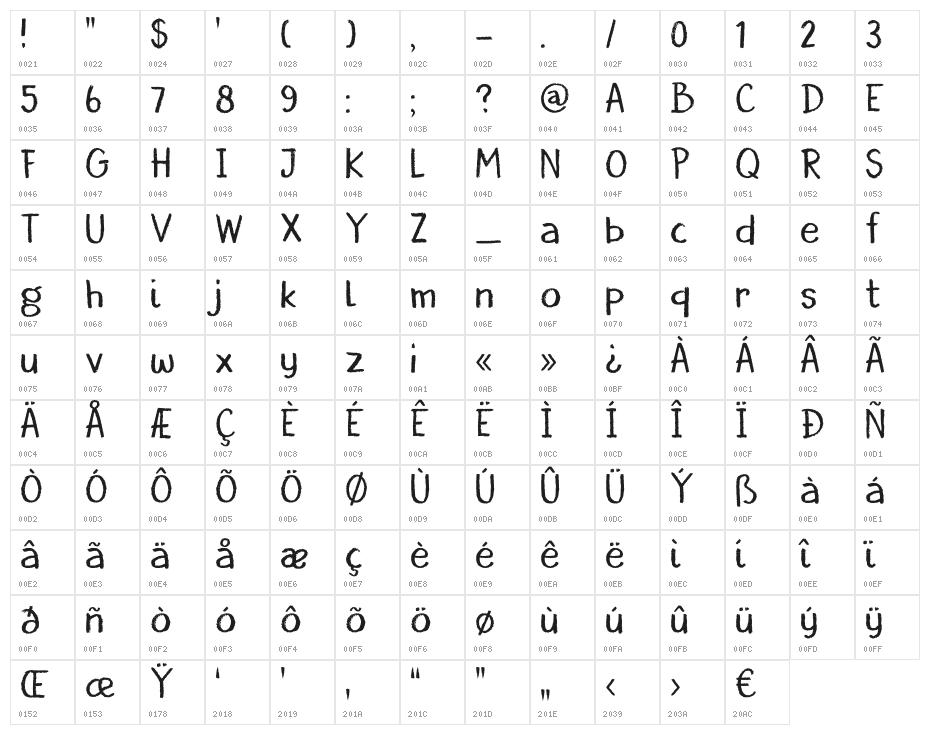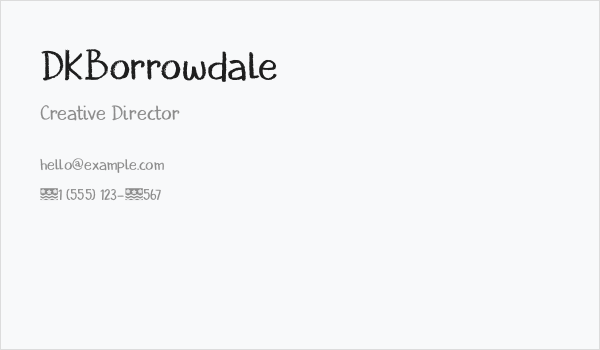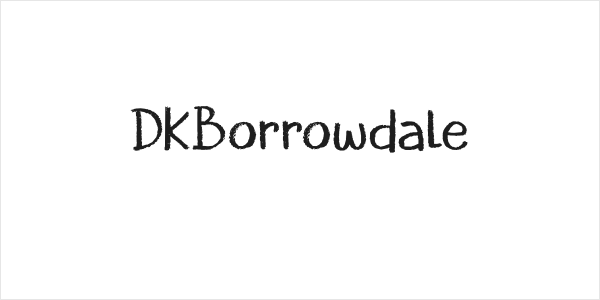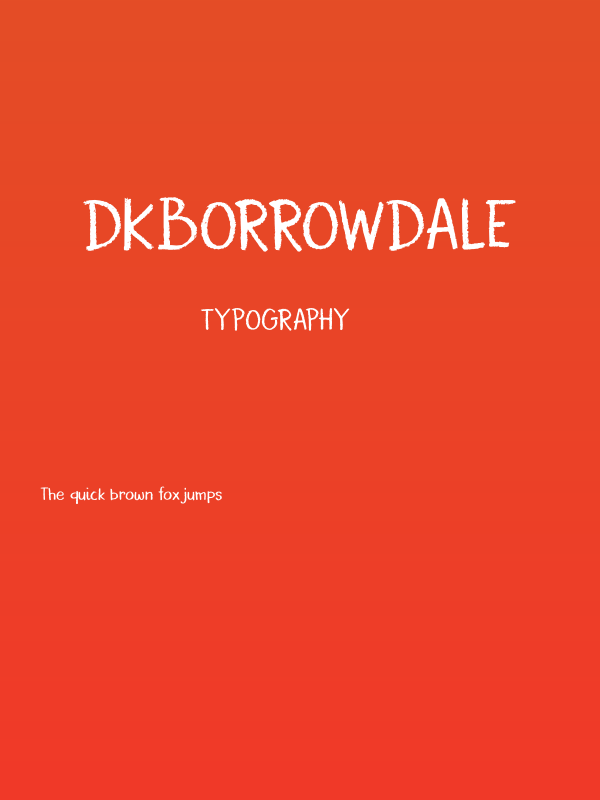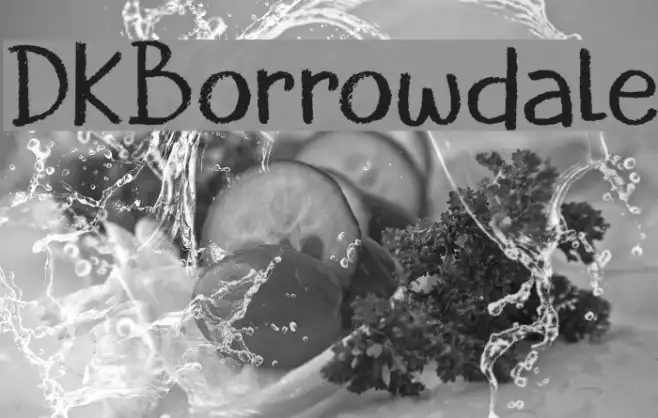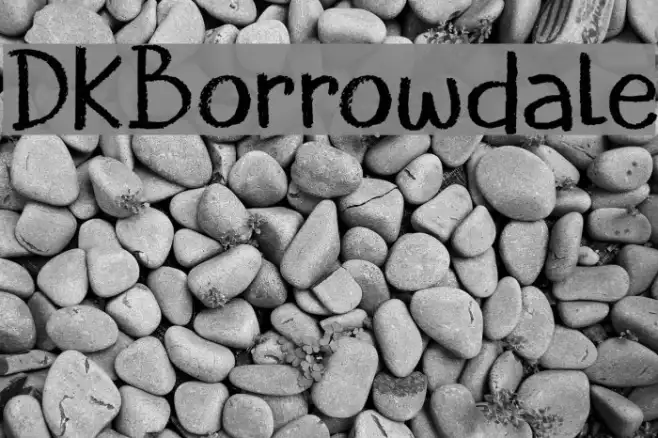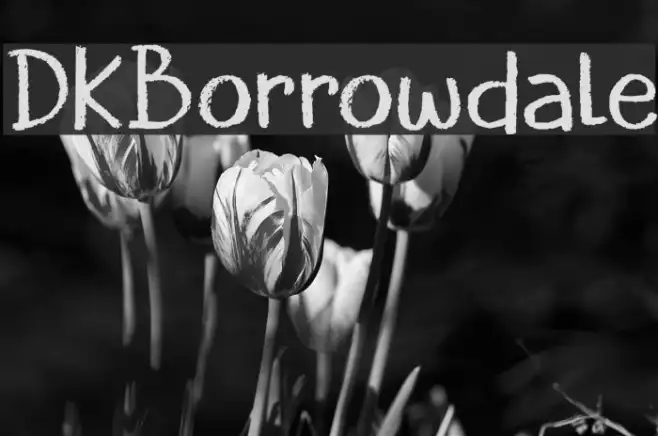
DKBorrowdale Font
DKBorrowdale Description
This font features a textured, hand-drawn style that gives it a rustic and organic appearance. The letters are slightly irregular, adding to the handcrafted feel. The uppercase and lowercase characters maintain a consistent style, with rounded edges and a playful, informal look. The numerals and special characters follow the same aesthetic, ensuring a cohesive design throughout. This font's unique texture and casual style make it stand out, providing a warm and approachable feel.